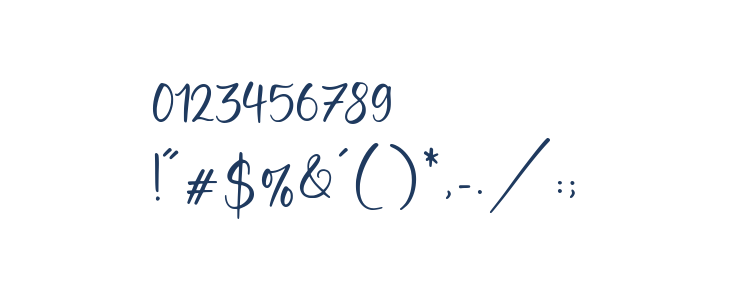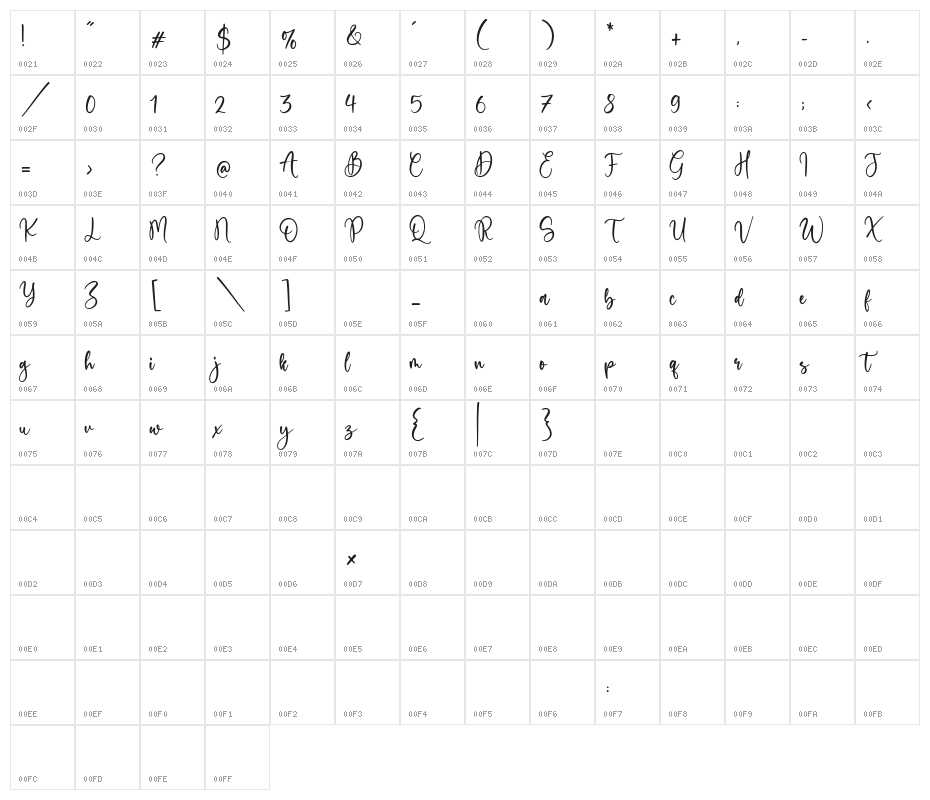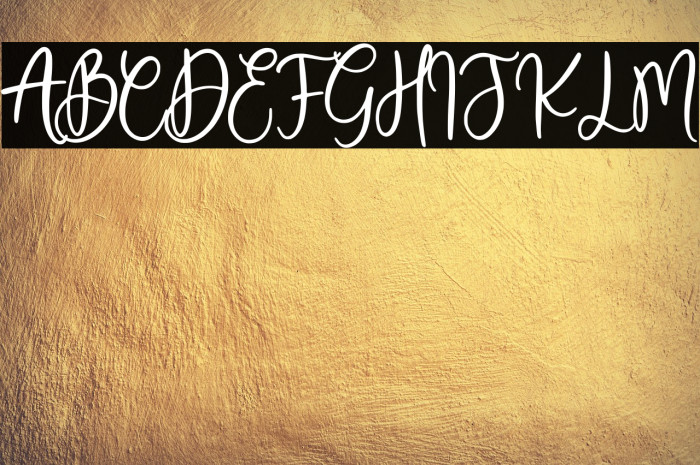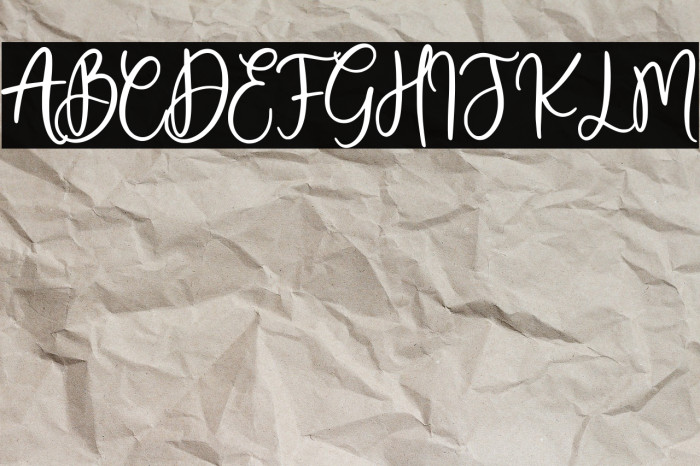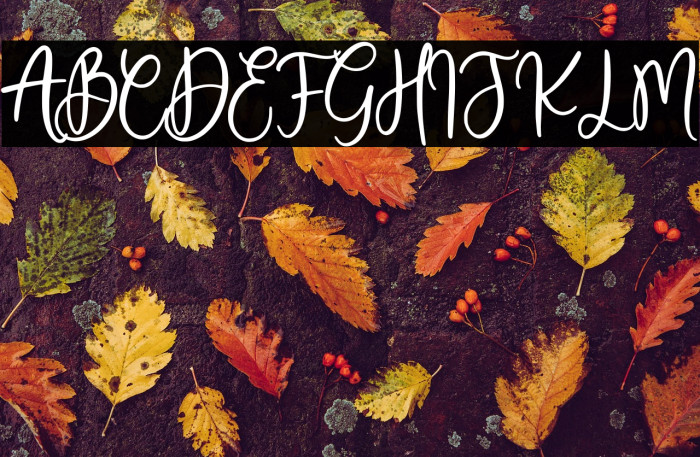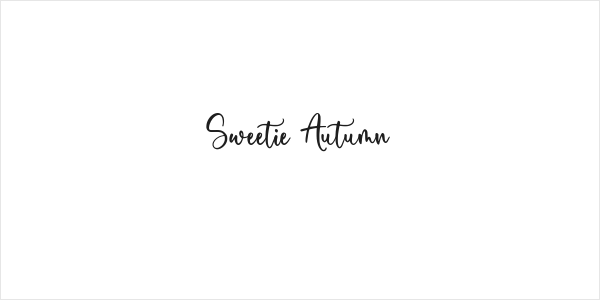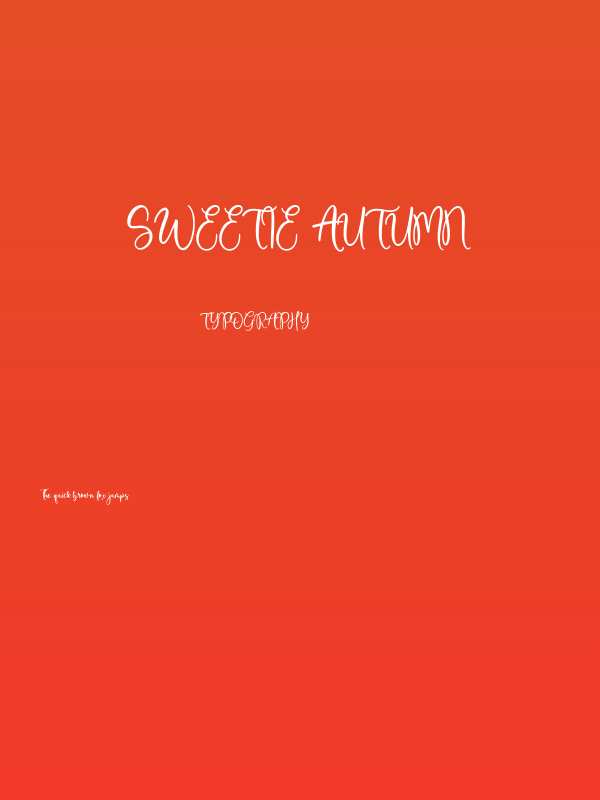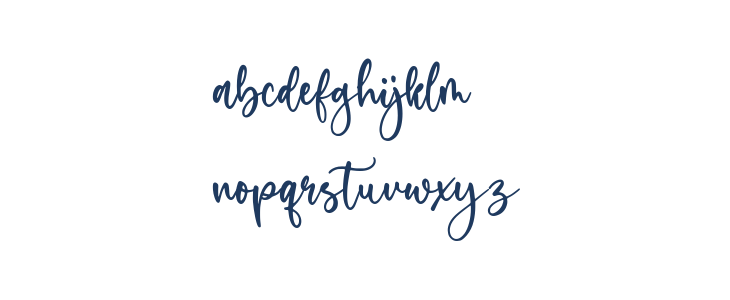
Sweetie Autumn Font
Sweetie Autumn Description
This font exudes a playful and whimsical charm, characterized by its flowing, cursive script style. The letters are interconnected with smooth, elegant curves, giving it a hand-drawn appearance. The uppercase letters are bold and expressive, while the lowercase letters maintain a consistent flow, enhancing readability. The numbers and special characters complement the overall style with their rounded and slightly exaggerated forms. This font is perfect for adding a personal touch to any design, making it ideal for creative projects that require a warm and inviting feel.